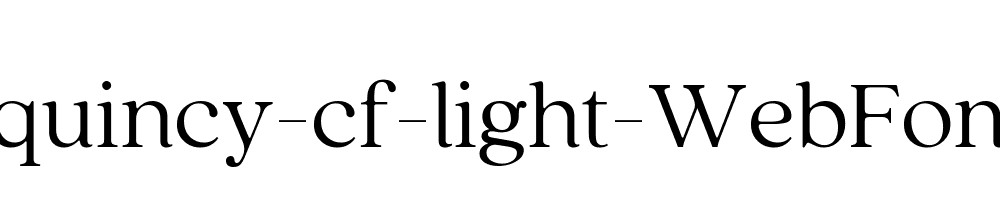
quincy-cf-light-WebFont
About quincy-cf-light-WebFont
The quincy-cf-light WebFont has a sleek and modern design with a subtle elegance that sets it apart from other fonts. The aperture of this font is perfectly proportioned, adding a touch of sophistication to any text. The apex of the letters gives them a sharp and clean look, while the arc adds a sense of fluidity to the overall design. The arms of the letters are gracefully extended, creating a sense of openness and airiness. The ascenders reach high above the x-height, giving the font a feeling of lightness and energy. The axis of the letters is straight and sturdy, providing a stable foundation for the design. The beak adds a unique touch to the font, making it stand out from the crowd. The bilateral serif adds a touch of tradition and formality to the font, balancing its modern look with a classic touch. The bowls of the letters are perfectly rounded, giving them a soft and friendly appearance. The bracket adds a subtle elegance to the font, giving it a sense of refinement and grace. The open counter creates a sense of movement and flow within the letters, while the closed counter adds a sense of solidity and structure. The crossbar of the letters is perfectly horizontal, creating a sense of balance and harmony. The crotch of the font is carefully designed, adding a touch of sophistication to the overall design. The descenders of the letters are gracefully extended, giving the font a sense of depth and dimension. The ears of the font add a touch of whimsy and playfulness to the design. The eyes of the font are perfectly circular, adding a sense of focus and clarity to the letters. The finial of the font is elegantly designed, adding a touch of flair and style to the design. The foot of the font is sturdy and well-defined, providing a strong base for the letters. The hairline of the font is delicate and refined, adding a sense of elegance and sophistication. The head serif adds a touch of tradition and authority to the font, enhancing its overall presence. The joint of the font is carefully crafted, adding a sense of unity and coherence to the design. The legs of the font are sturdy and well-proportioned, giving the letters a strong and solid look. The ligature of the font is seamlessly integrated, adding a sense of fluidity and continuity to the text. The link/neck of the font is gracefully curved, adding a touch of elegance and refinement to the design. The loop of the font is perfectly rounded, giving the letters a sense of motion and energy. The overhang of the font adds a unique touch to the design, making it stand out from other fonts. The serif of the font is carefully crafted, adding a touch of tradition and elegance to the design. The shoulder of the font is well-defined, adding a sense of strength and stability to the letters. The spine of the font is elegantly curved, adding a sense of grace and fluidity to the design. The spur of the font is subtly designed, adding a touch of sophistication and style to the overall look. The stem of the font is sturdy and well-crafted, providing a strong and solid foundation for the letters. The stress of the font is perfectly balanced, giving the letters a sense of harmony and unity. The tail of the font is gracefully extended, adding a touch of flair and style to the design. The tittle of the font is perfectly placed, adding a sense of precision and attention to detail. The terminal of the font is elegantly designed, giving the letters a sense of completion and closure. The vertex of the font is carefully crafted, adding a touch of distinction and sophistication to the design.
Classified as an elegant and progressive font, the quincy-cf-light WebFont features a perfect balance of tradition and modernity. Its expressive design makes it perfect for conveying a serious and friendly tone while also adding a touch of sophistication and style. The font’s organic structure gives it a familiar yet daring look, making it suitable for a wide range of design applications. With its warm and discreet appearance, the font can add a touch of class to any project, making it a versatile choice for designers looking for a font that stands out from the crowd. Overall, the quincy-cf-light WebFont is a classic and elegant font that combines tradition with innovation, making it a perfect choice for any design project.